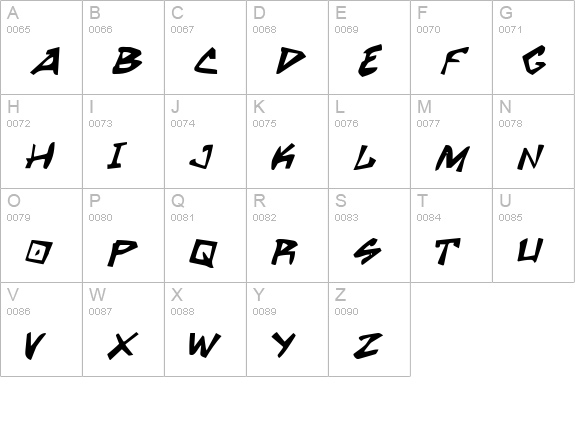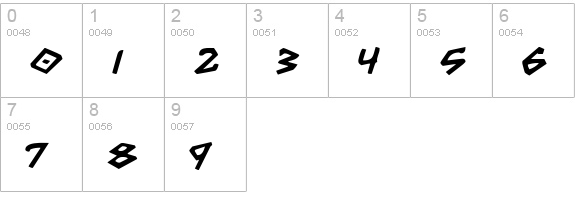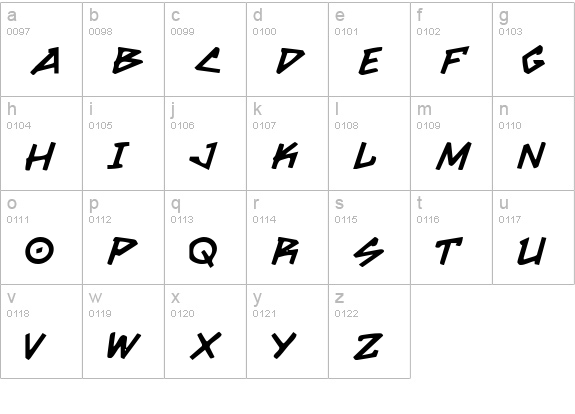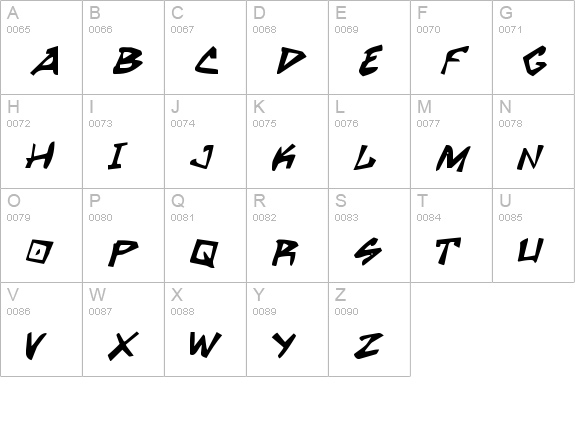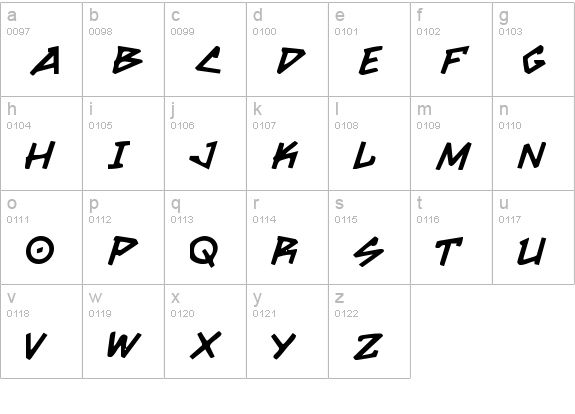
Grrrrrr Bold Font Details
Grrrrrr Bold is a strong, high-contrast variant in the Grrrrrr typeface family \xE2\x80\x94 well suited to headlines, attention-grabbing titles, and strong calls-to-action.
Grrrrrr Bold is a powerful and attention-grabbing font that exudes strength and boldness. Its thick, heavy strokes give off a sense of confidence and authority, making it the perfect choice for designs that need to make a statement. Whether you're creating posters, logos, or headlines, Grrrrrr Bold will ensure that your message is heard loud and clear. The best part? Grrrrrr Bold is completely free to download at FontsMarket.com. This means you can add this striking font to your collection without breaking the bank. Don't miss out on the opportunity to enhance your designs with the impactful style of Grrrrrr Bold. Download it now and let your creativity roar!